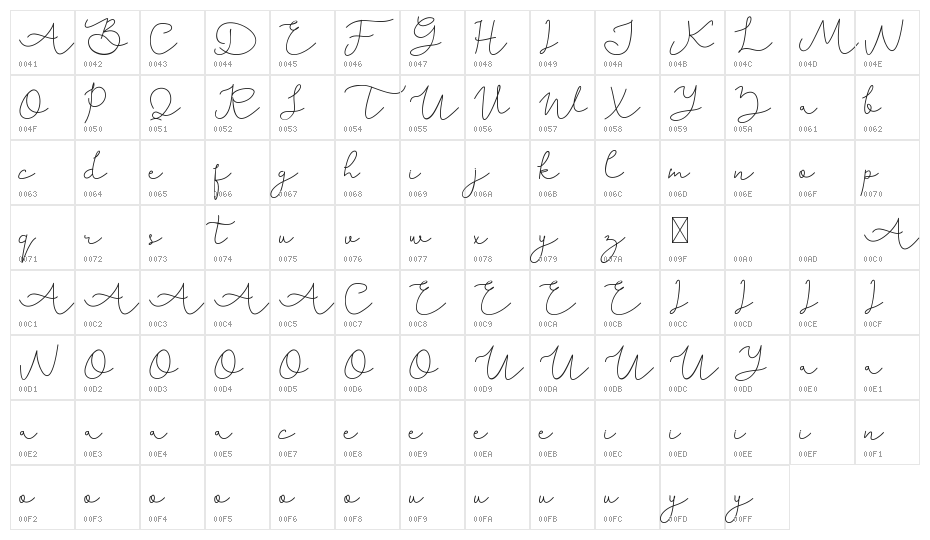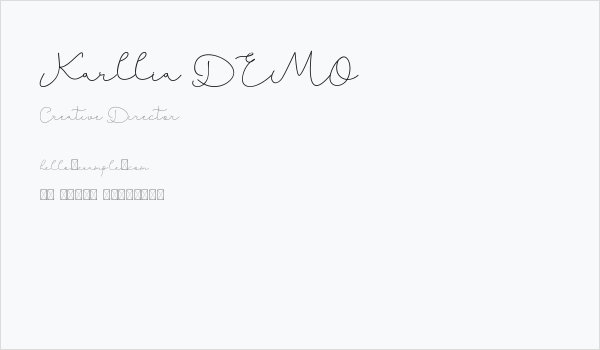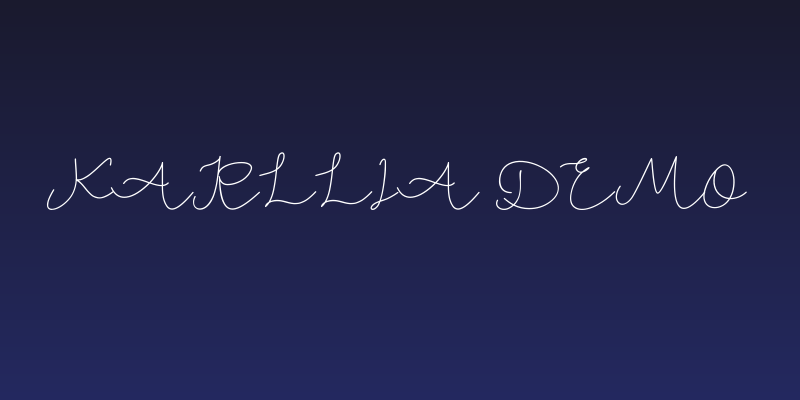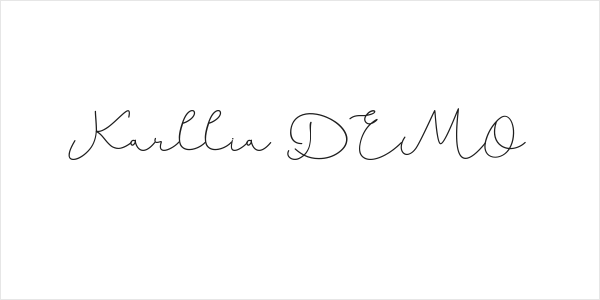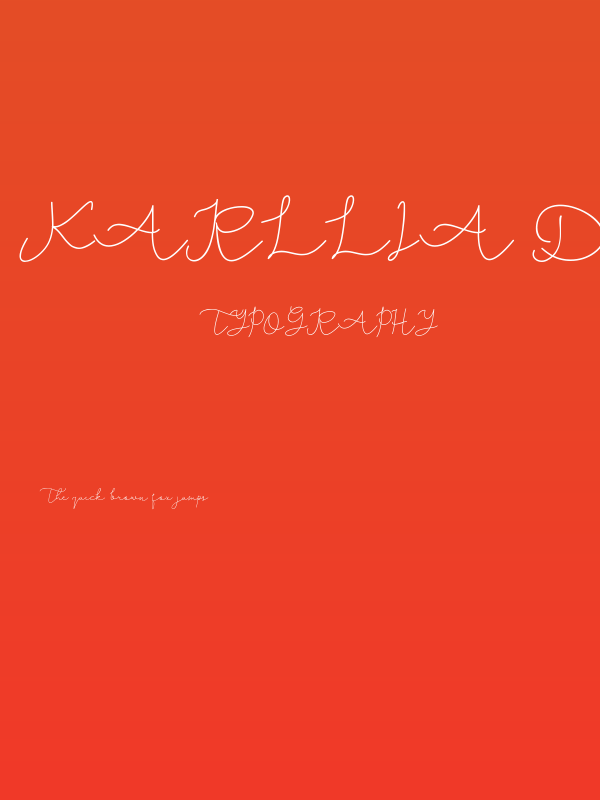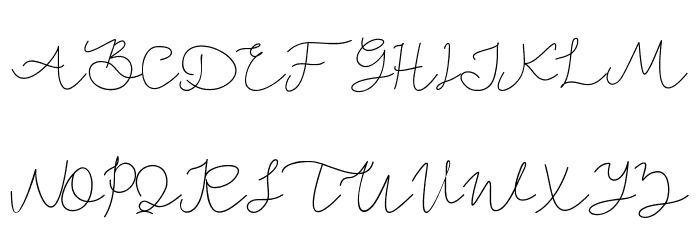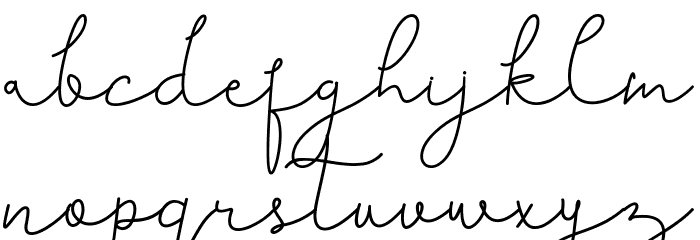
Karllia DEMO Font
This font features an elegant and flowing script style, characterized by its delicate and continuous strokes that mimic the fluidity of handwriting. The uppercase letters are slightly more structured, while the lowercase letters exhibit a more pronounced cursive flair, with loops and swashes that enhance its graceful appearance. The overall design is airy and light, with a consistent stroke width that maintains readability despite its decorative nature. This font is ideal for projects that require a personal touch, such as invitations, greeting cards, or branding materials that aim to convey sophistication and elegance.
| Use Case | Invitations, Greeting cards, Branding |
| Proposed Projects | Ideal for wedding invitations, greeting cards, personal branding, and elegant packaging. |